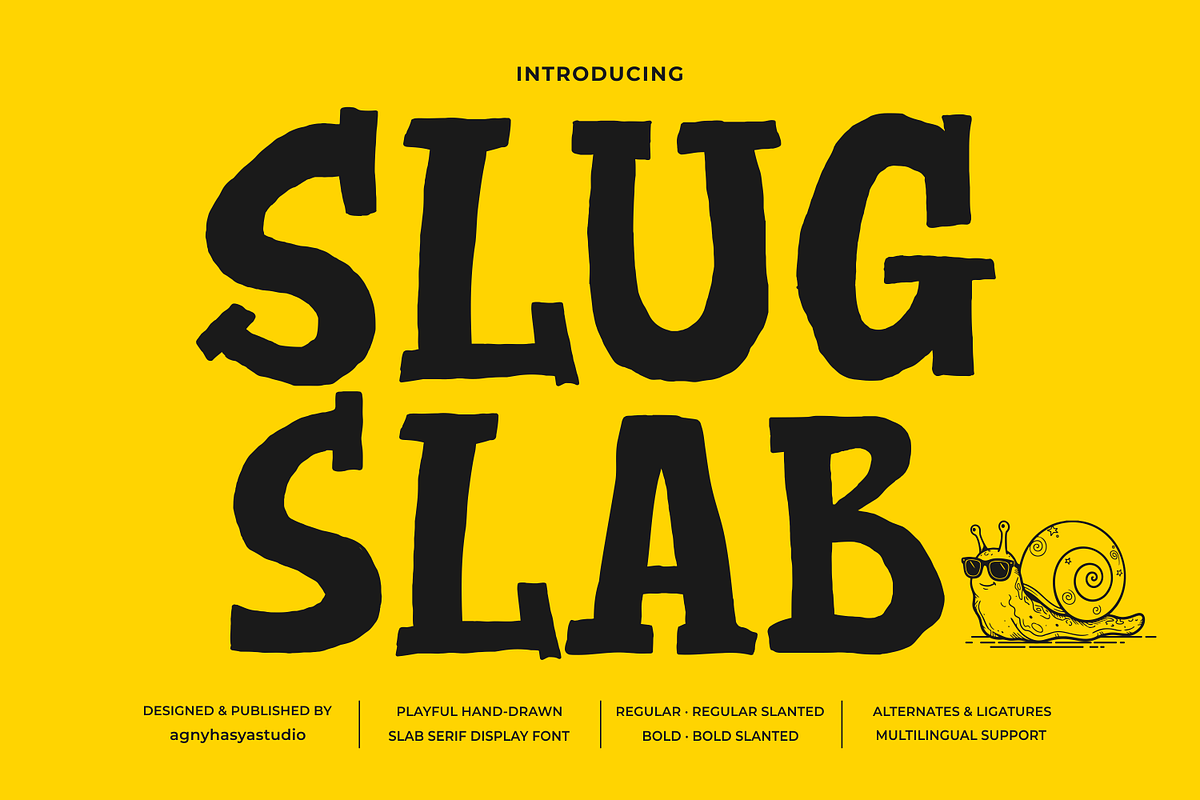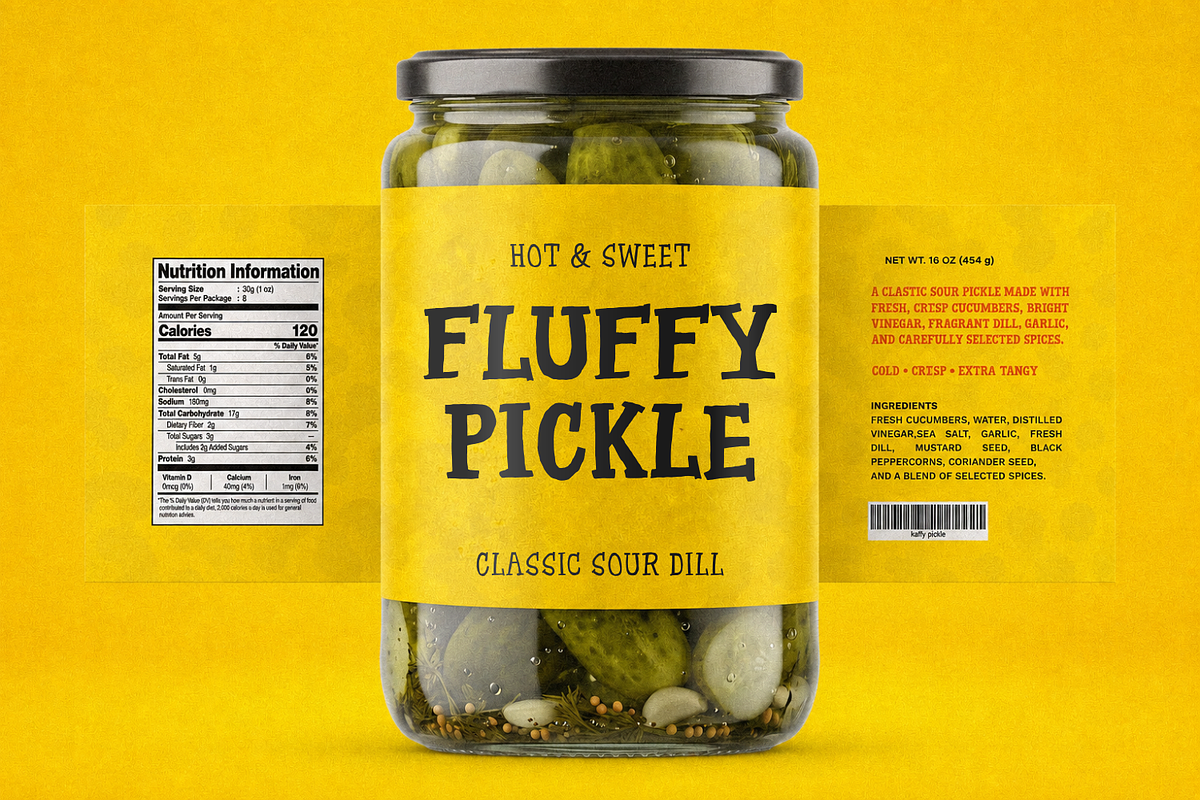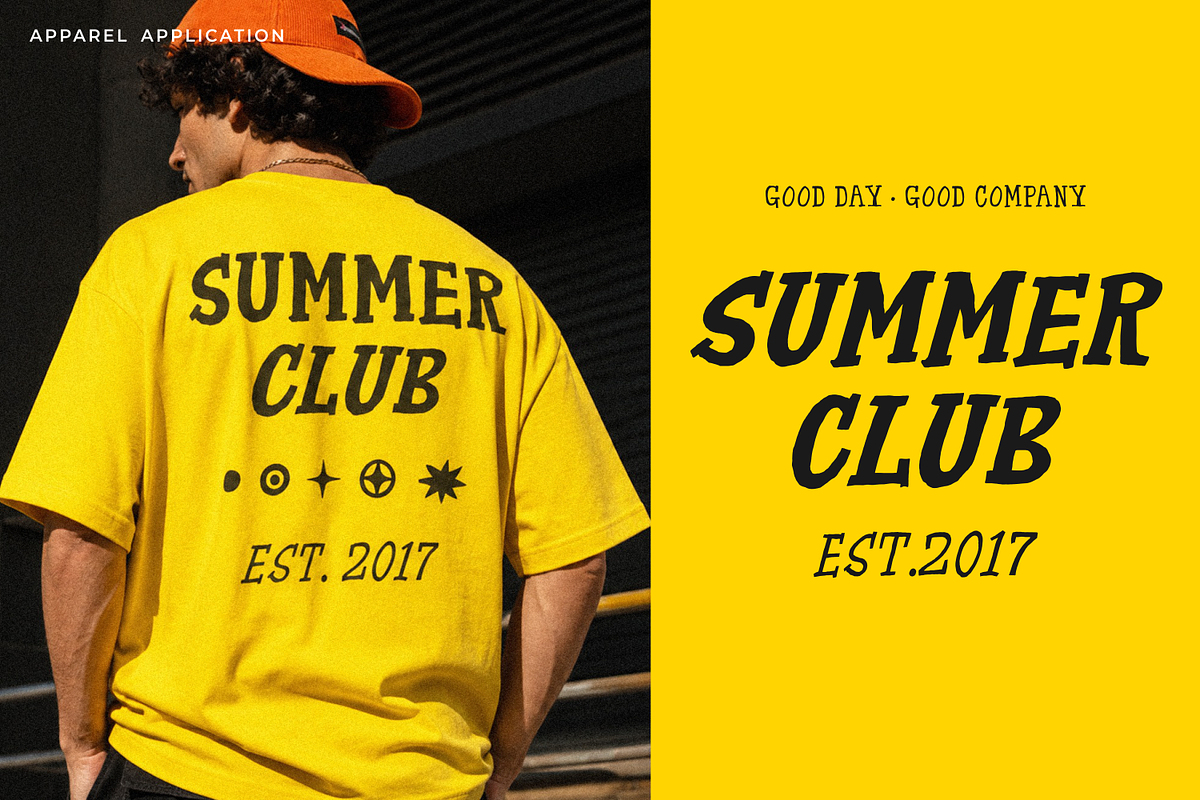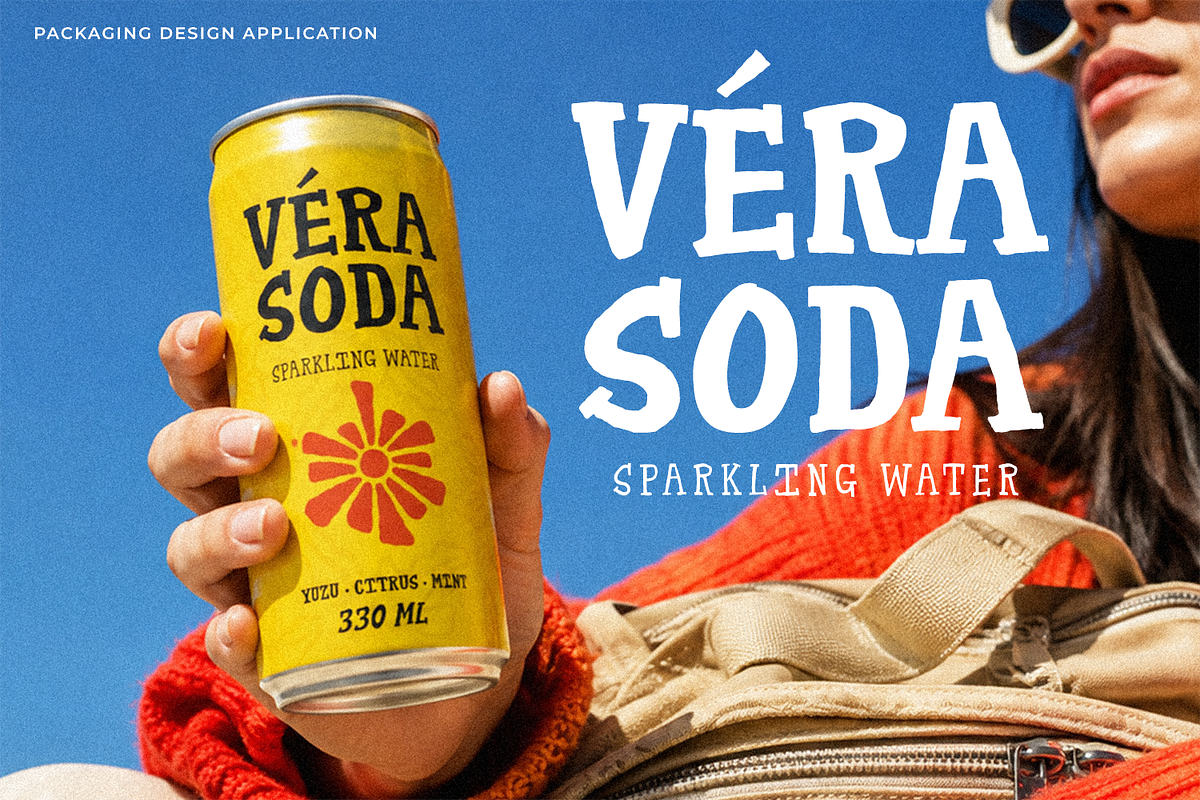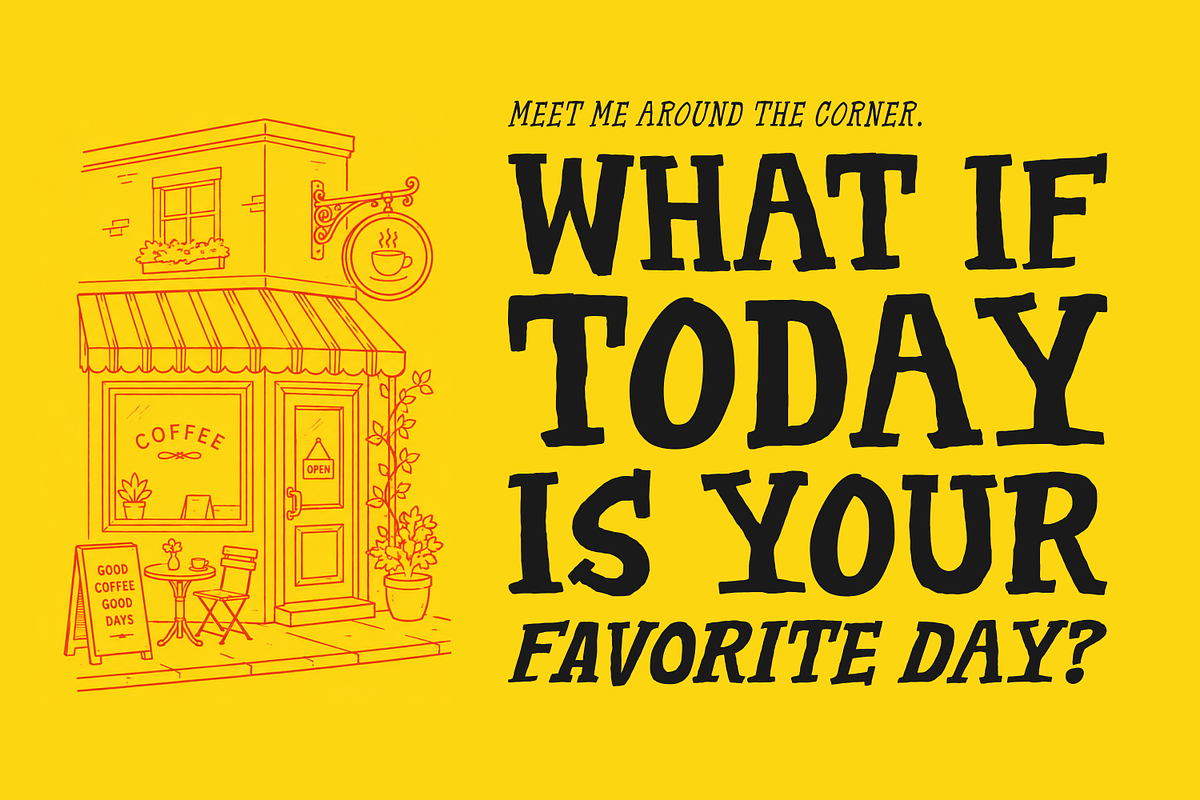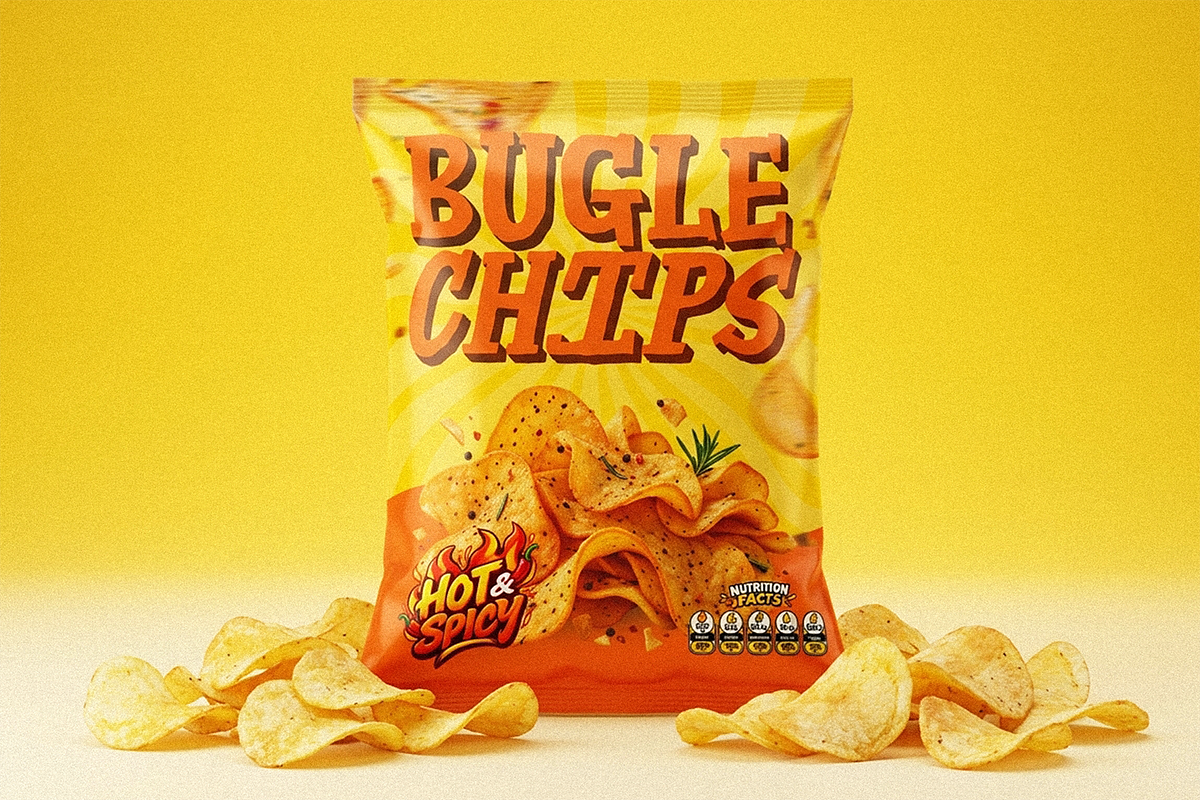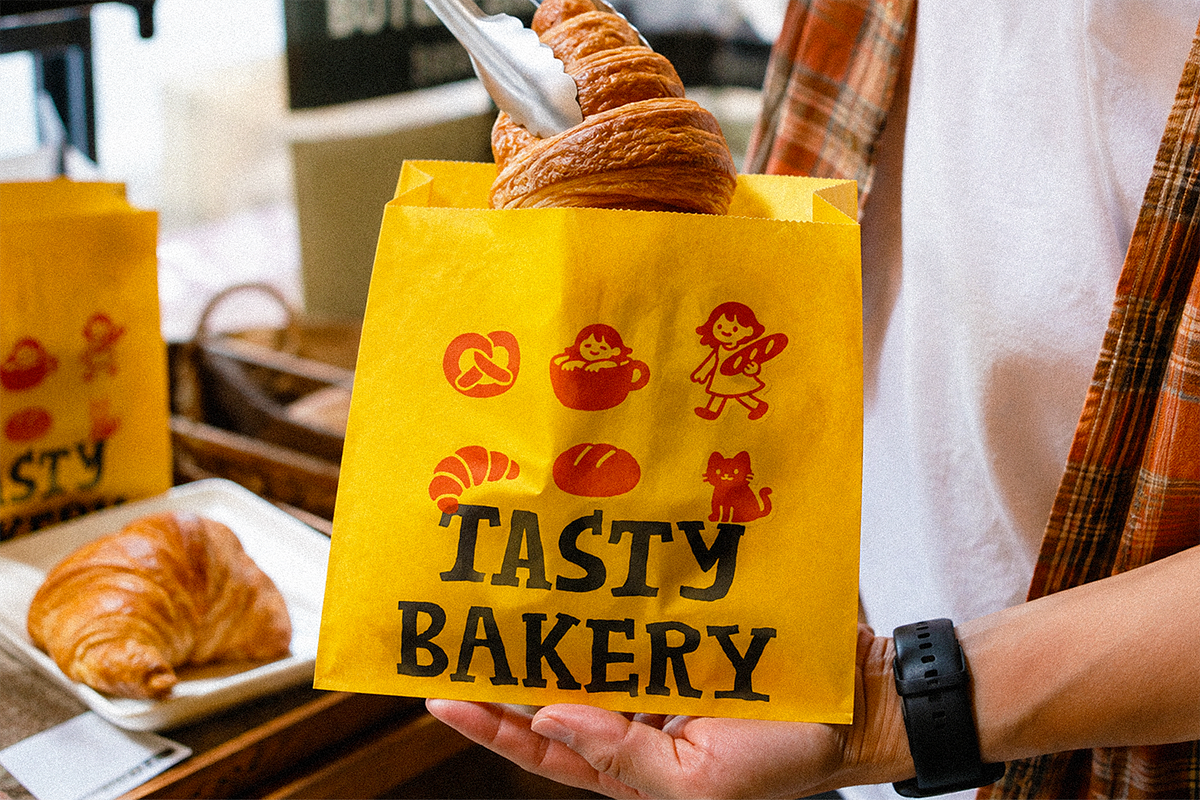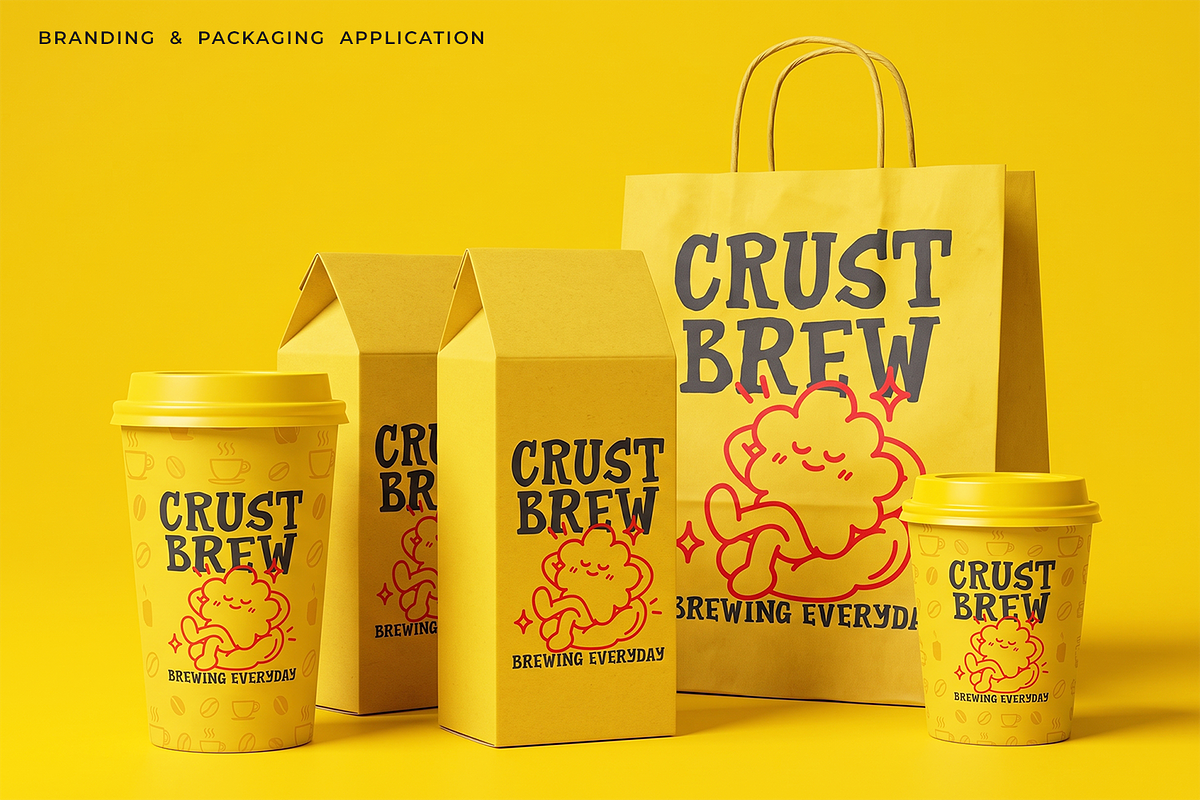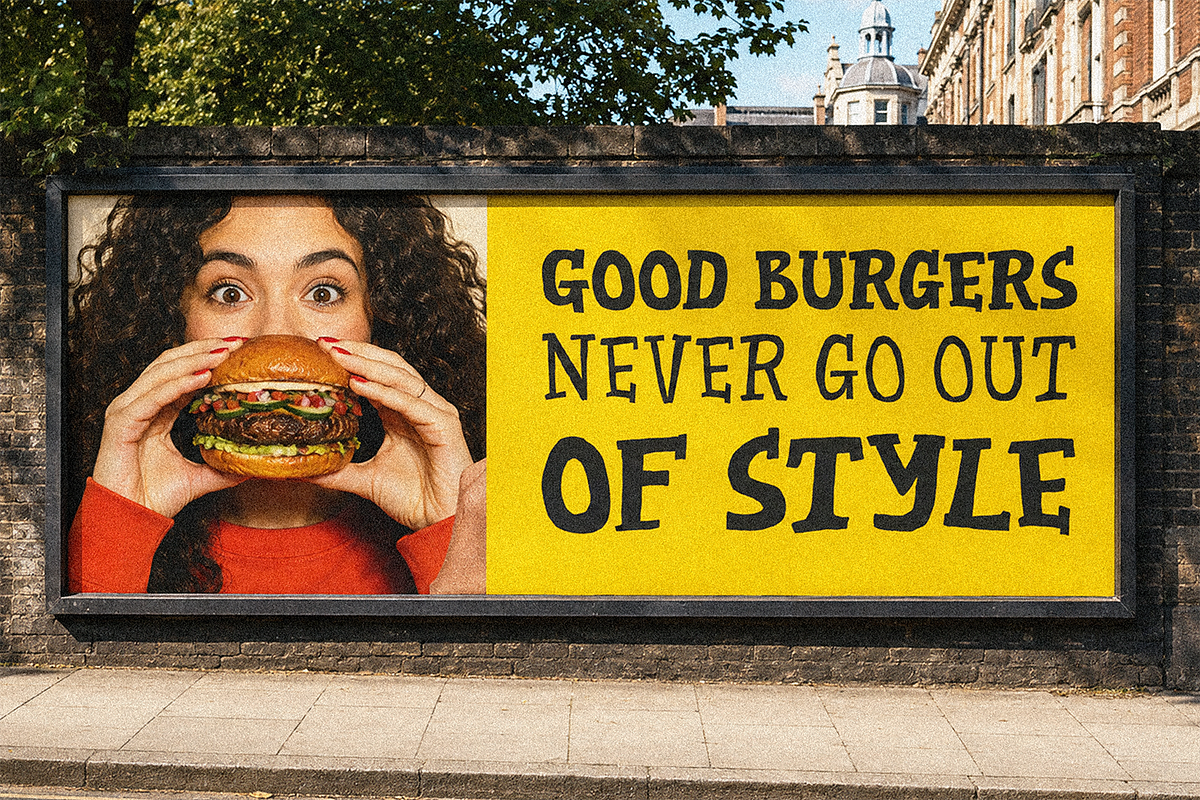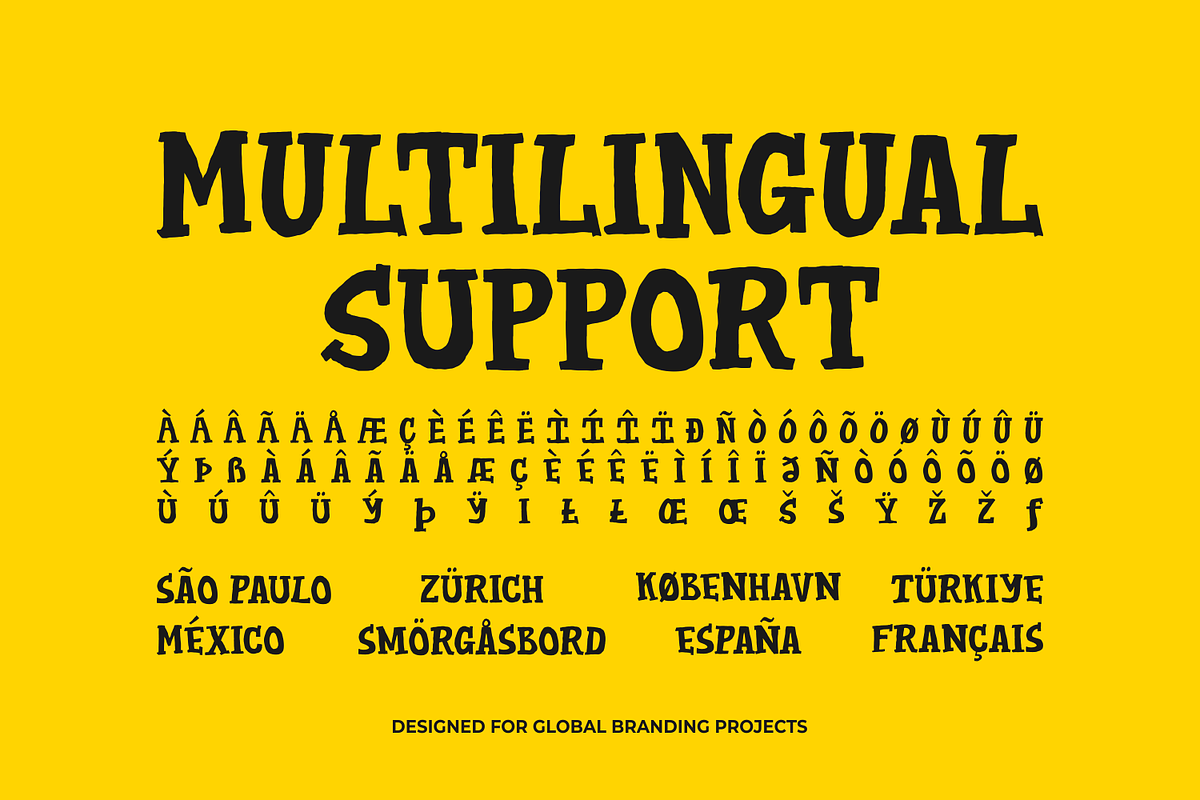
SlugSlab - Playful Slab Serif Family
Give Your Brand a Playful Handmade Voice
Meet SlugSlab, a hand-drawn slab serif display font family created for bold branding, food packaging, restaurant identities, posters, editorial headlines, merchandise, and character-driven visuals.
Inspired by organic trails and irregular movement of handmade lettering, SlugSlab combines chunky slab serifs, quirky proportions, and deliberately imperfect forms. The result feels nostalgic without looking dated, playful without becoming childish, and bold enough to become part of the brand itself.
Four Styles, One Distinctive Personality
SlugSlab includes 4 coordinated styles: Regular, Regular Slanted, Bold, and Bold Slanted.
Use Regular for friendly, casual typography, Bold for maximum impact, and the Slanted styles to add movement, attitude, and contrast while keeping a consistent visual voice.
Food, beverage, restaurant, and café branding
Packaging, labels, and takeaway design
Logos and expressive wordmarks
Posters, editorial headlines, and magazine layouts
Cartoons, comics, movie titles, and entertainment graphics
Social media, website headlines, and video content
Streetwear, apparel, stickers, and merchandise
Music, events, lifestyle, and retail branding
4 coordinated styles
Stylistic alternates and ligatures
Numerals and punctuation
OpenType features
Make Every Word More Memorable